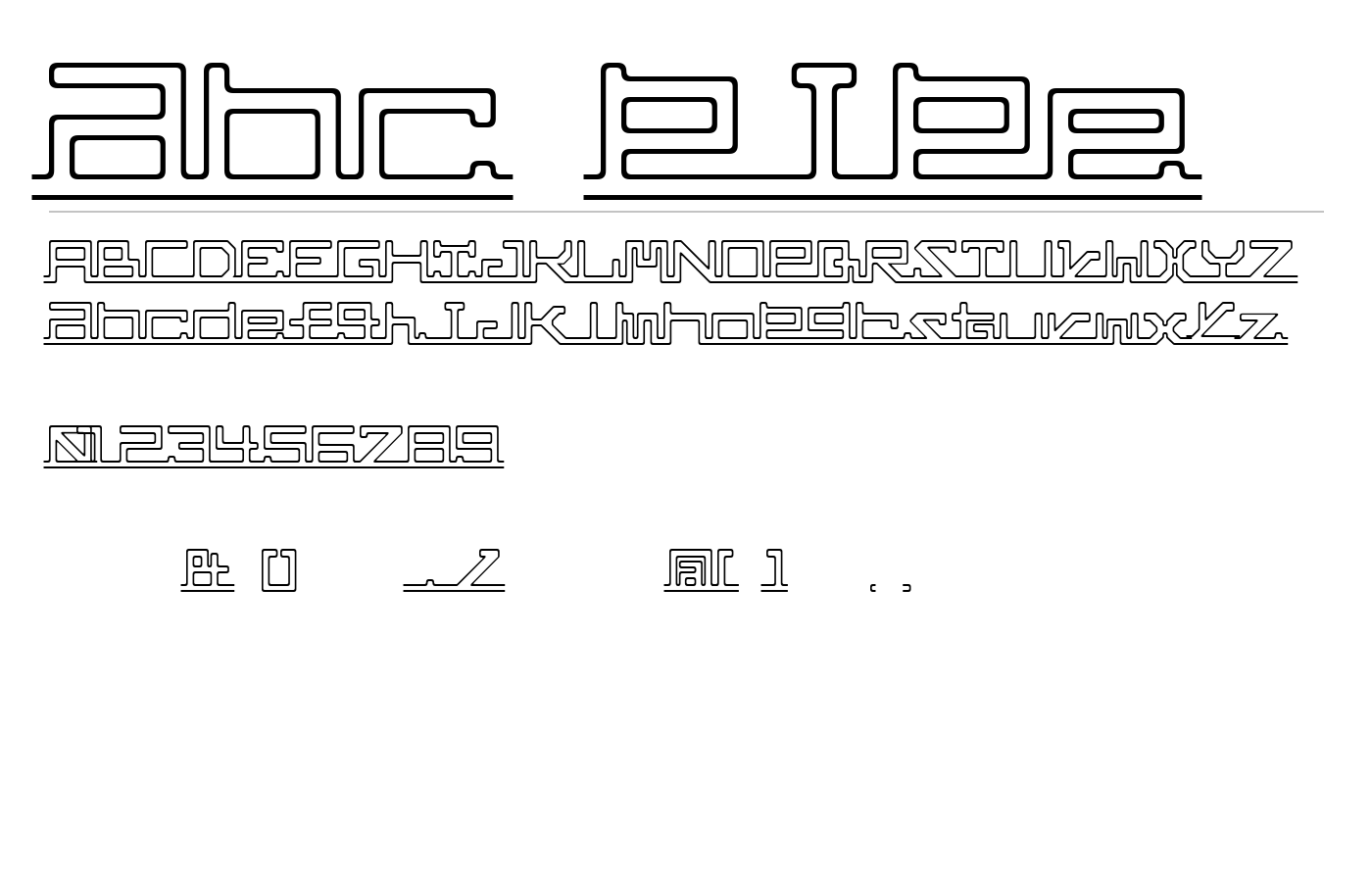
The abc,pipe Font is a modern, geometric sans serif with a unique, technical feel created by its continuous pipe-like strokes and squared letterforms. Its lightweight outline style and consistent stroke width give it an airy and futuristic vibe, making it perfect for tech branding, digital interfaces, and display use where a sleek, innovative look is desired. This font stands out with its distinct, maze-like design, ideal for logos, posters, and headlines that want to convey creativity and forward-thinking energy.
abc,pipe Font